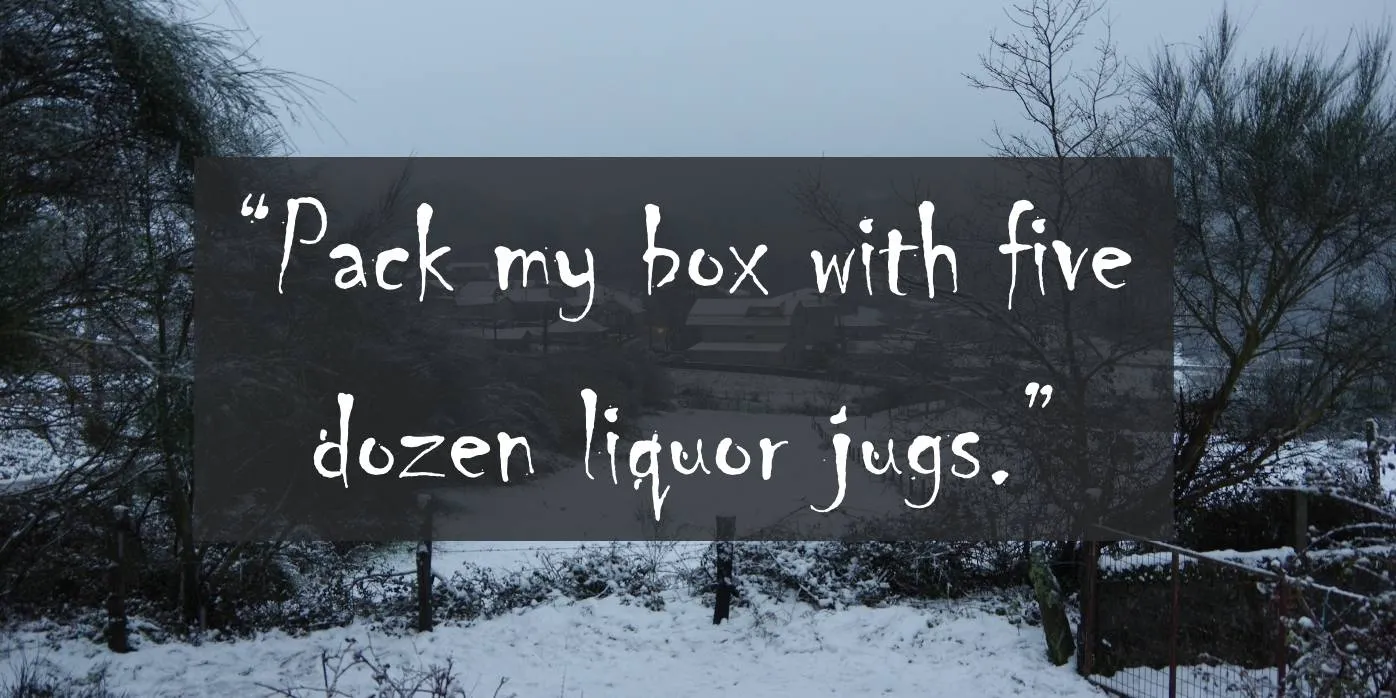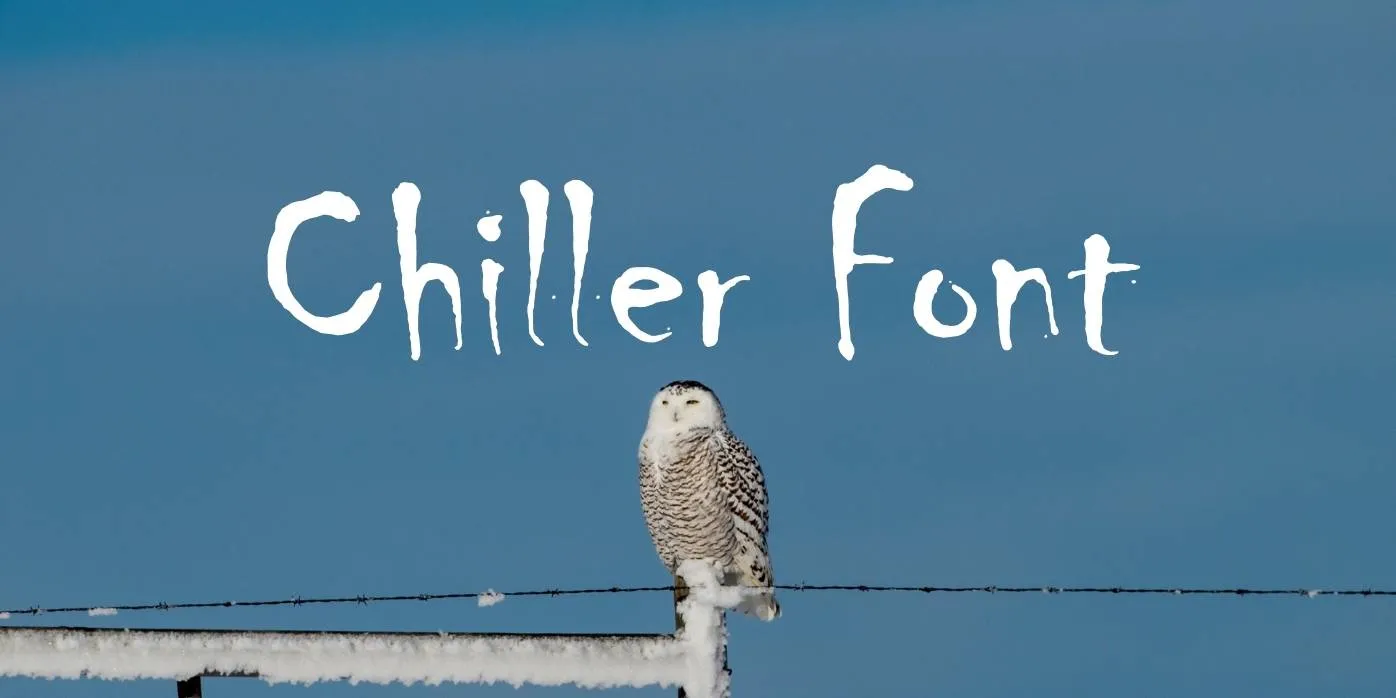
Chiller Font
Chiller Font is designed by a very famous manufacturer named Andrew Smith in 2004. This typeface belongs to the Brush font family. This typeface is very popular among young people. It has an attractive and modern look.
This fascinating Font can be used to make your text look different and stylish. This typeface is chaotic, irregular, and unpredictable. This typeface is perfect for titles, headlines, and logos. This awesome typeface is best and perfect for Canva.
Another Danger font is similar to this cozy typeface. This typeface comes in different unique special characters and ligatures. You can use this typeface to make your text look different and stylish. This typeface is free for personal projects.
You don’t need to worry about the progress of your project this typeface will provide comfort to all of your designs. There are a few things you should keep in mind while working with this stylish font. This typeface has keen features that make it differ from others fonts.